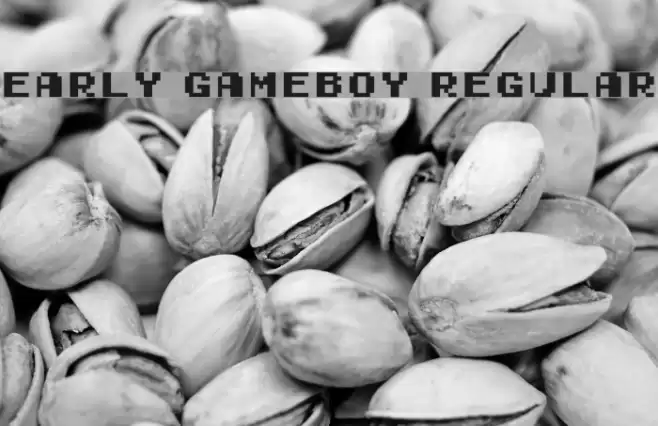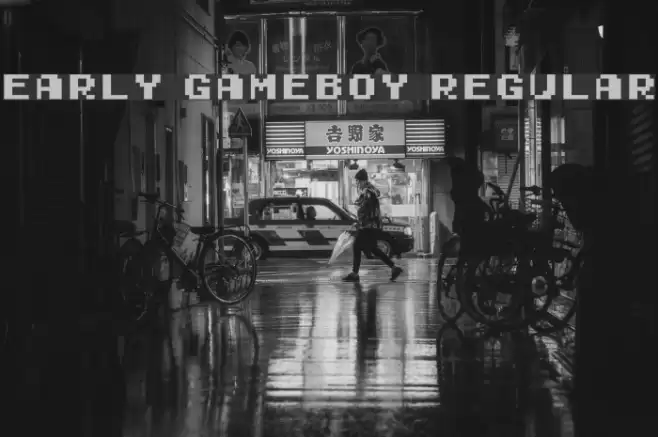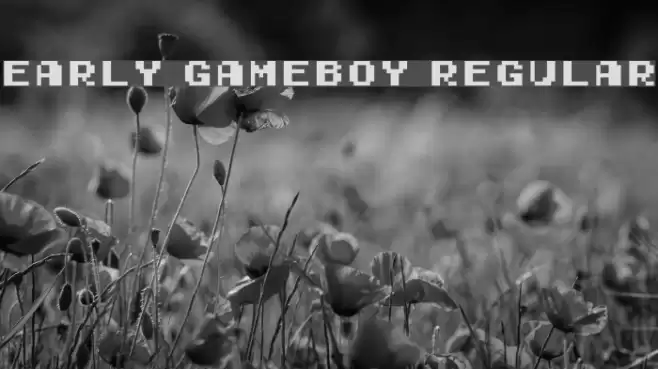
Early GameBoy Regular Font
Early GameBoy Regular Description
This font captures the essence of early digital typography, reminiscent of classic video game graphics. Its pixelated, blocky design is characterized by uniform, square-shaped characters that evoke a sense of nostalgia. Each letter and number is constructed with a consistent grid-like pattern, giving it a distinctly retro and digital appearance. The font's simplicity and clarity make it highly legible, even at smaller sizes. Its geometric structure is both functional and aesthetically pleasing, making it ideal for projects that aim to capture a vintage or tech-inspired look.
A pixelated, retro font inspired by early digital graphics from Uncategorized fonts.
- Proposed Projects: Ideal for retro video game designs, tech-themed posters, digital art projects, and nostalgic branding.
- Overall Style: Vintage
- Use Case: Logos, Headlines, Digital displays